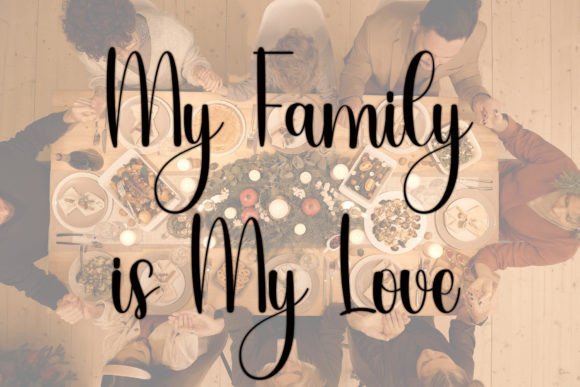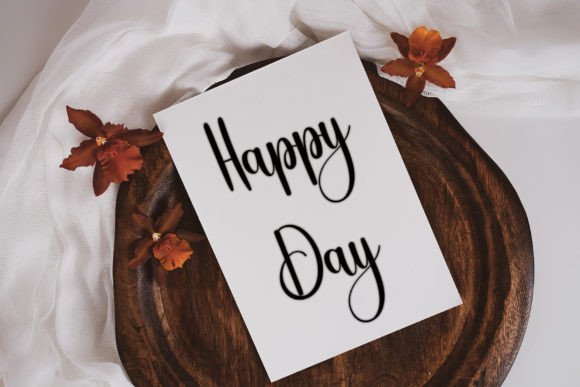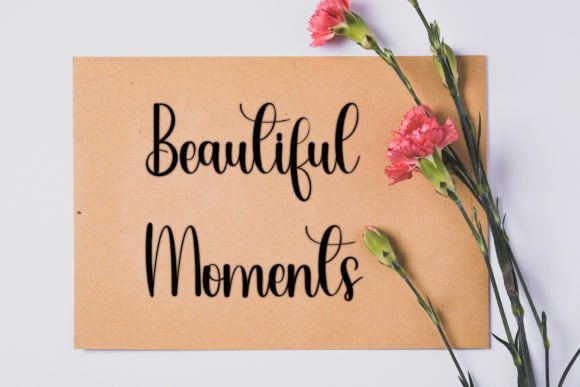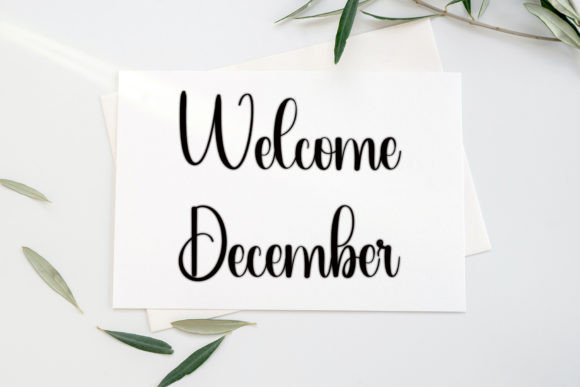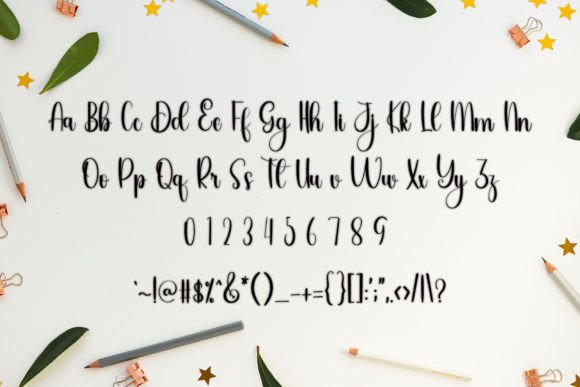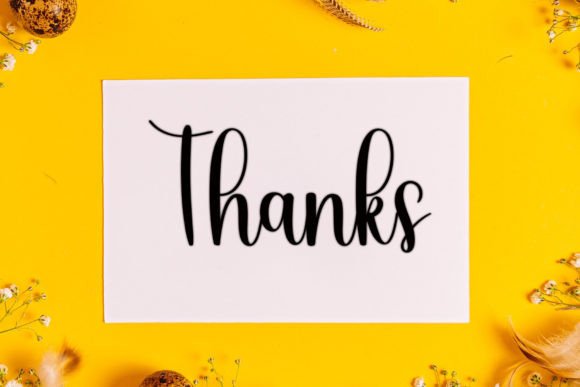
Introducing Family Christmas Font: A Timeless Classic for Your Holiday Projects
Are you looking for a font that embodies the spirit of Christmas and adds a touch of elegance to your designs? Look no further than the Family Christmas Font, a stylish handwritten font that brings a contemporary atmosphere and impeccable form to your projects. Inspired by timeless classic calligraphy, this font is perfect for designers and crafters who want to create beautiful and memorable holiday-themed designs.
A Font that Exudes Elegance and Sophistication
Family Christmas Font is a beautifully crafted font that boasts a balanced and varied design. Its unique blend of classic and modern elements makes it an excellent choice for a wide range of projects, from holiday cards and invitations to festive posters and social media graphics. With its impeccable form and stylish handwritten aesthetic, this font is sure to elevate your designs and leave a lasting impression on your audience.
One of the standout features of Family Christmas Font is its PUA (Private Use Area) encoding. This means that you can easily access all of the amazing glyphs and ligatures that make this font so special. With PUA encoding, you can unlock the full potential of the font and take your designs to the next level. Whether you’re a seasoned designer or a crafty DIY enthusiast, the ease of use and flexibility of Family Christmas Font make it an excellent choice for your holiday projects.
Perfect for a Wide Range of Holiday Projects
Family Christmas Font is incredibly versatile and can be used for a wide range of holiday projects. Here are just a few ideas to get you started:
- Holiday cards and invitations: Create beautiful and personalized cards and invitations that set the tone for your holiday celebrations.
- Festive posters and flyers: Design eye-catching posters and flyers that showcase your holiday events and promotions.
- Social media graphics: Create engaging and shareable social media graphics that spread holiday cheer and drive engagement.
- DIY crafts: Use Family Christmas Font to add a personal touch to your holiday crafts, such as gift tags, banners, and decorations.
Why Choose Family Christmas Font?
With so many fonts to choose from, why should you choose Family Christmas Font for your holiday projects? Here are just a few reasons why this font stands out from the rest:
- Unique and stylish design: Family Christmas Font boasts a unique and stylish design that’s sure to turn heads.
- Easy to use: With PUA encoding, you can easily access all of the font’s glyphs and ligatures, making it easy to use and customize.
- Versatile: Family Christmas Font is perfect for a wide range of holiday projects, from cards and invitations to posters and social media graphics.
- High-quality: This font is designed with high-quality and precision, ensuring that it looks great in any design.